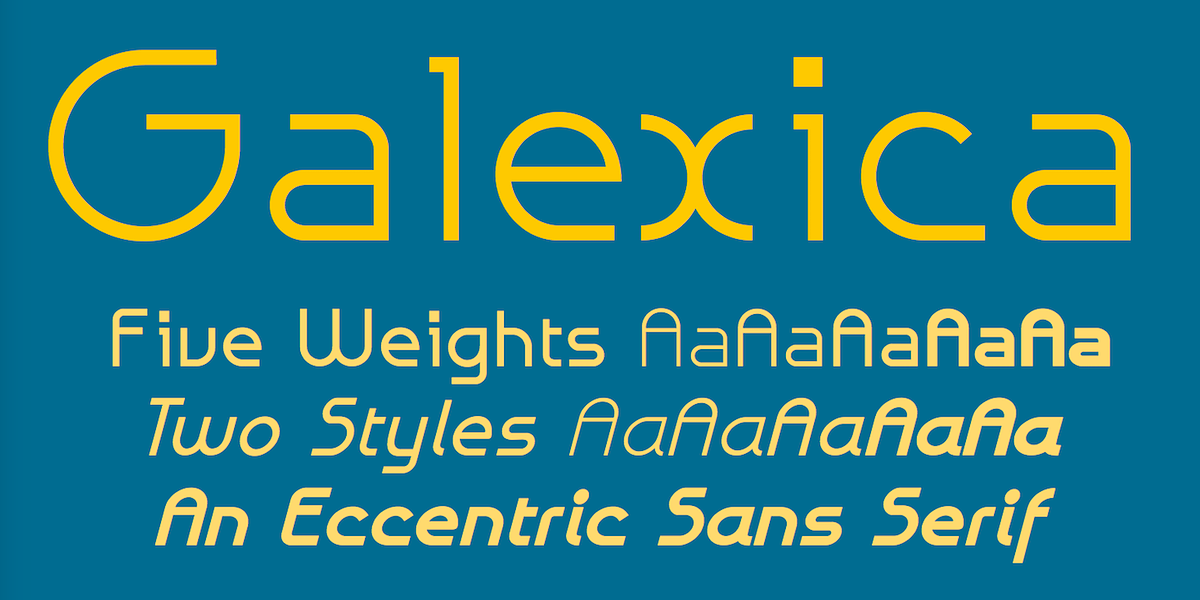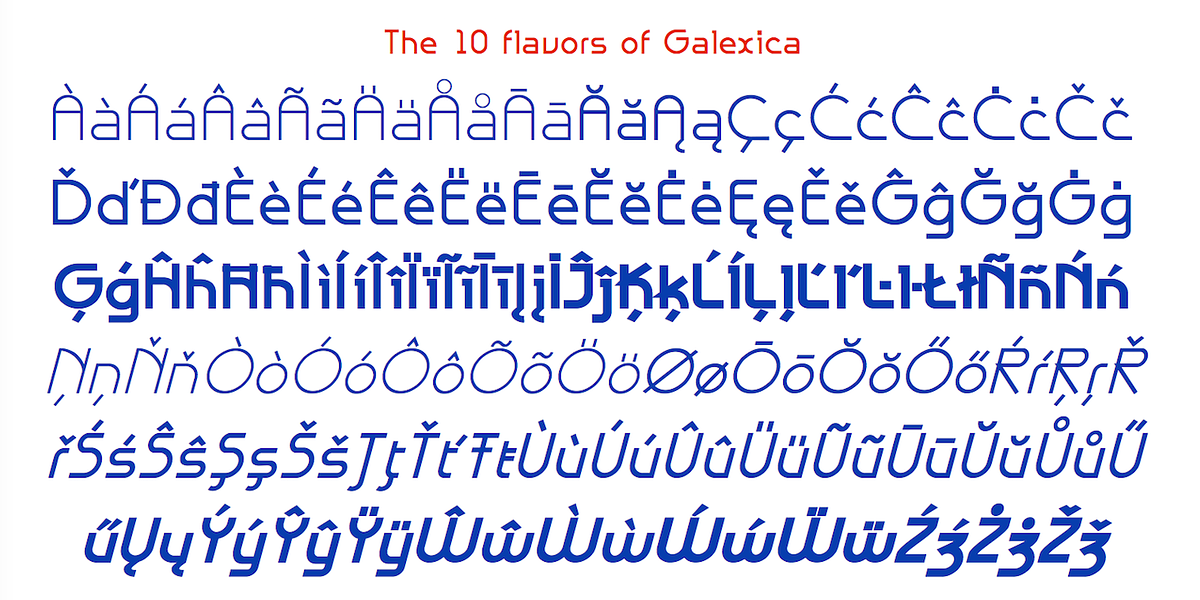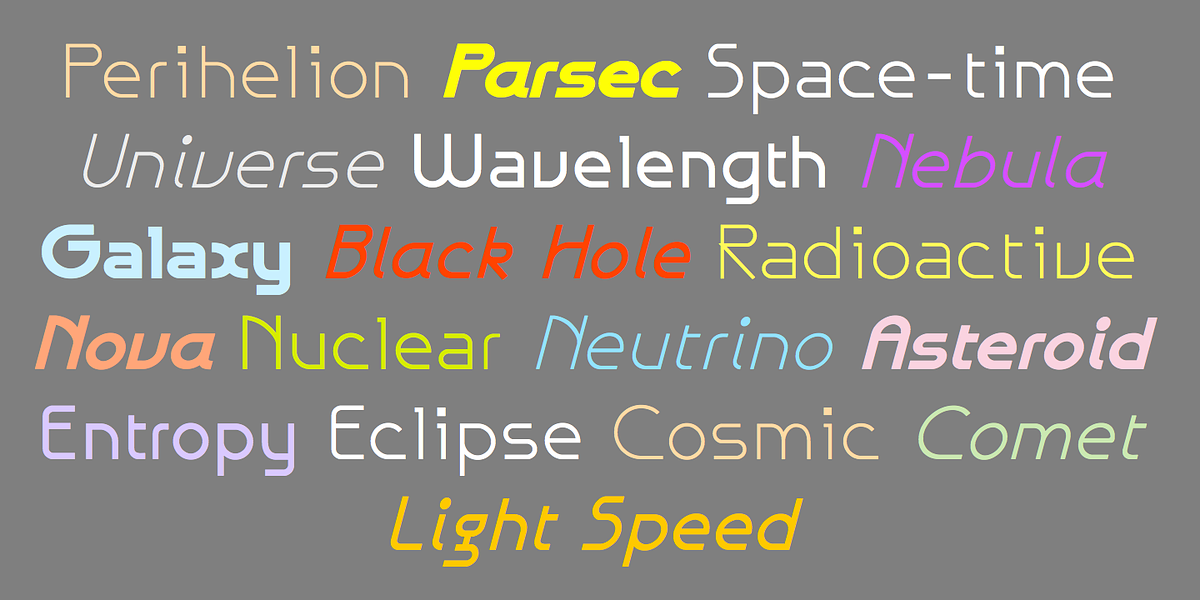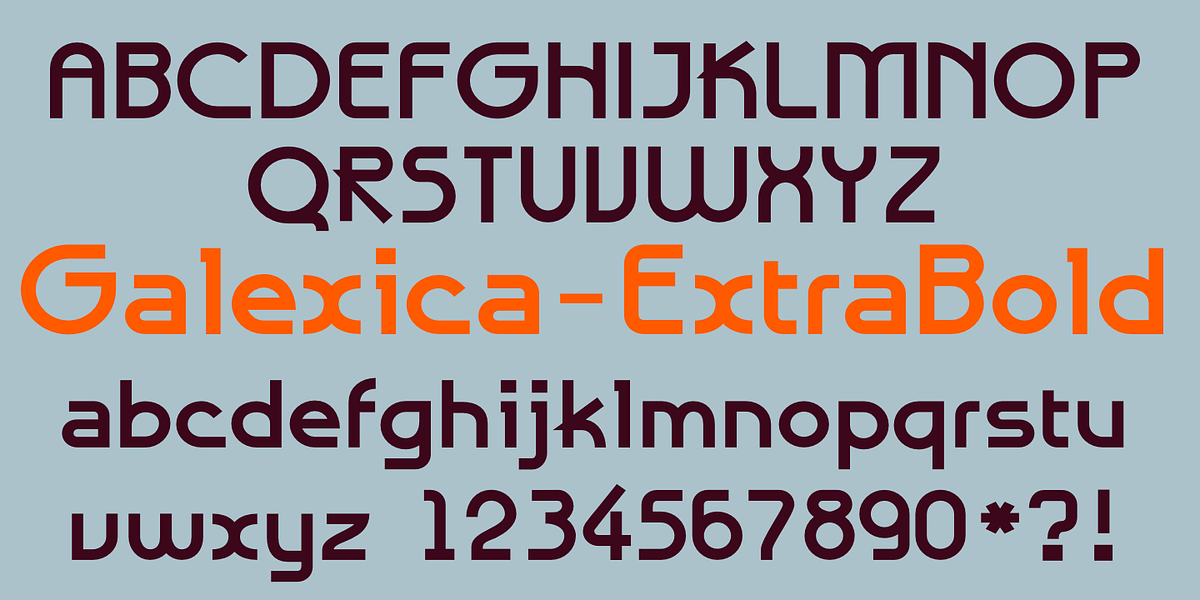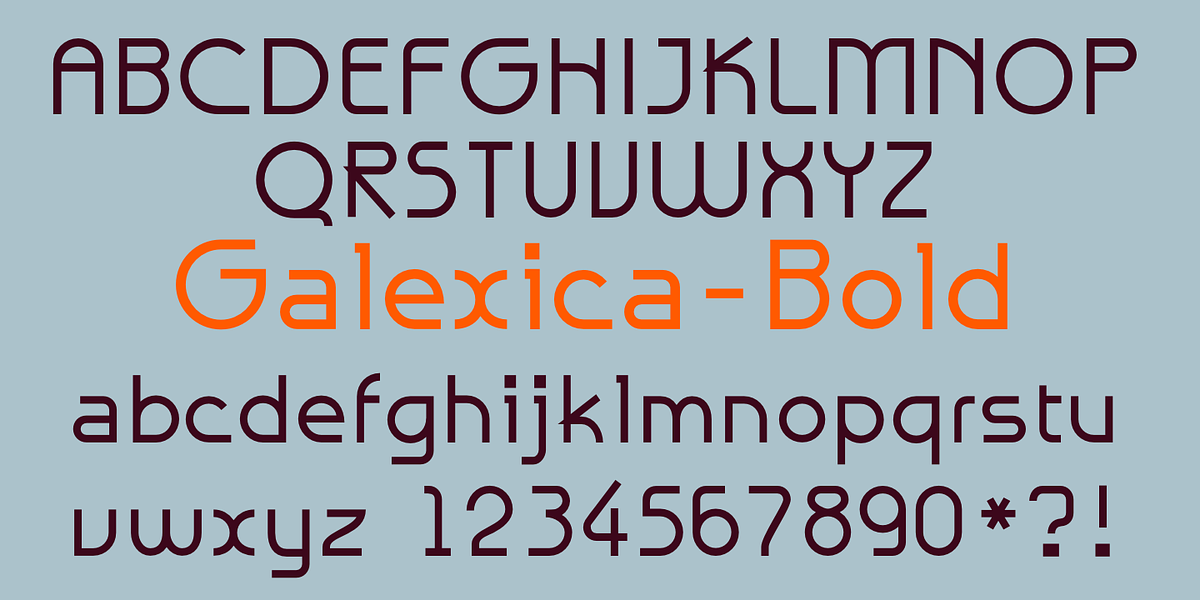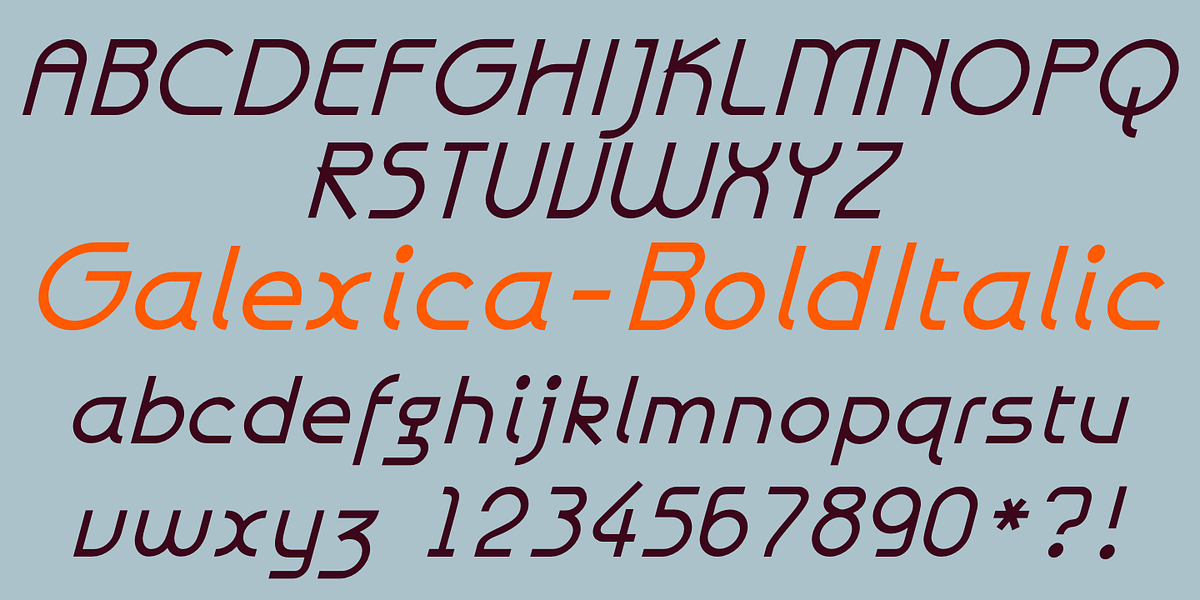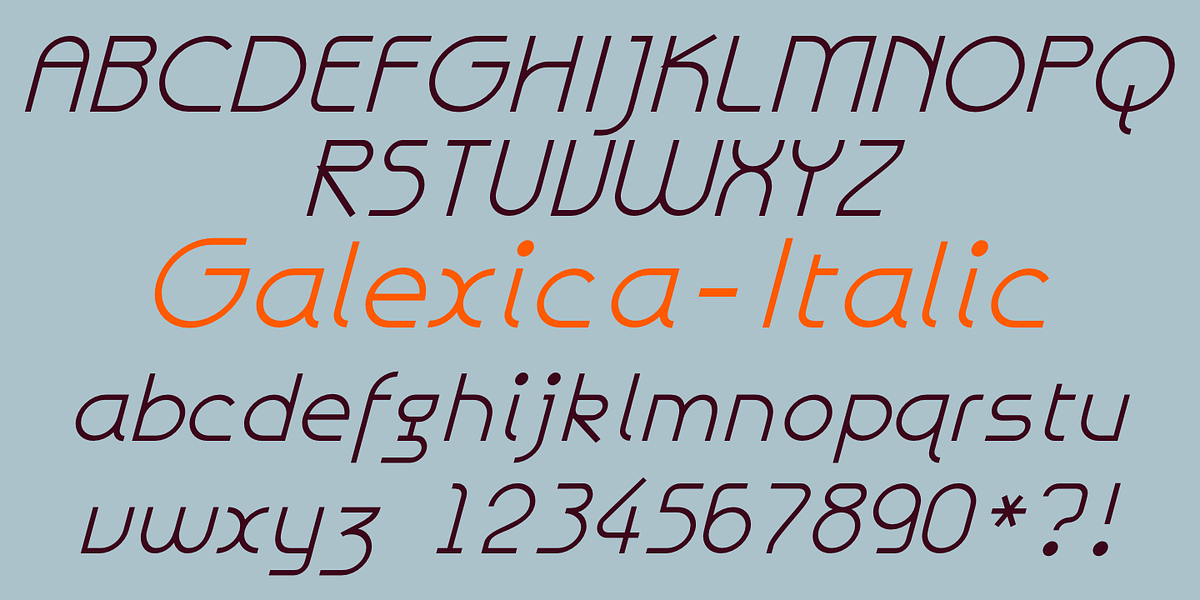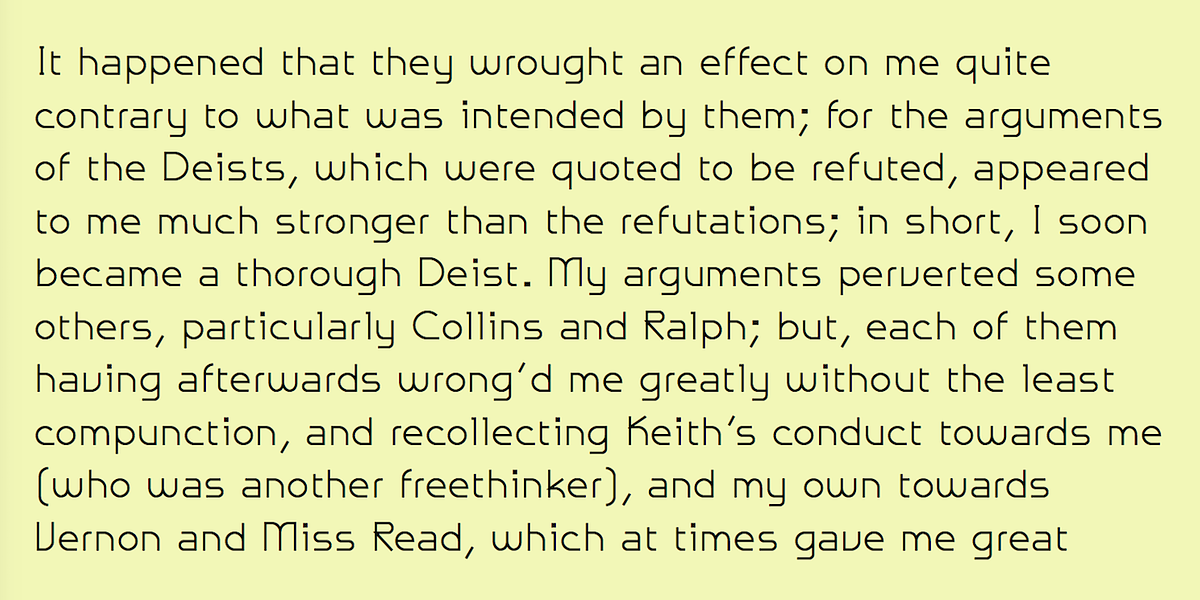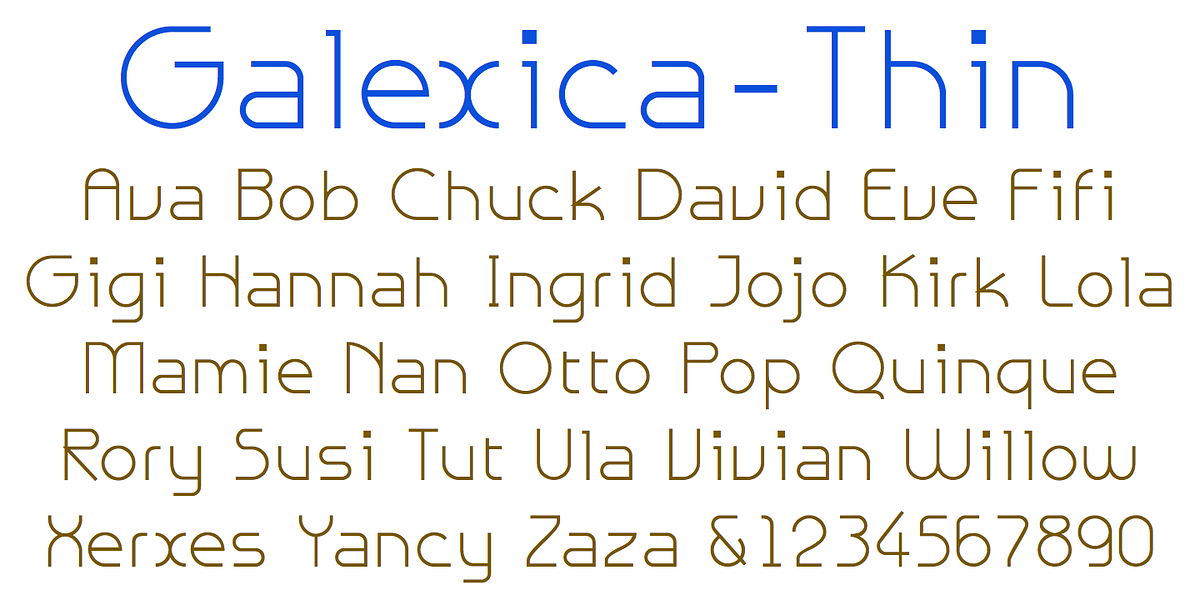
Galexica
Galexica is a modernistic sans-serif typeface characterized by its geometric shapes. It offers plain, bold, and extra-bold weights, with italics available for the bold and extra-bold versions. This font's square shape and futuristic theme make it well-suited for branding and tech-related applications.